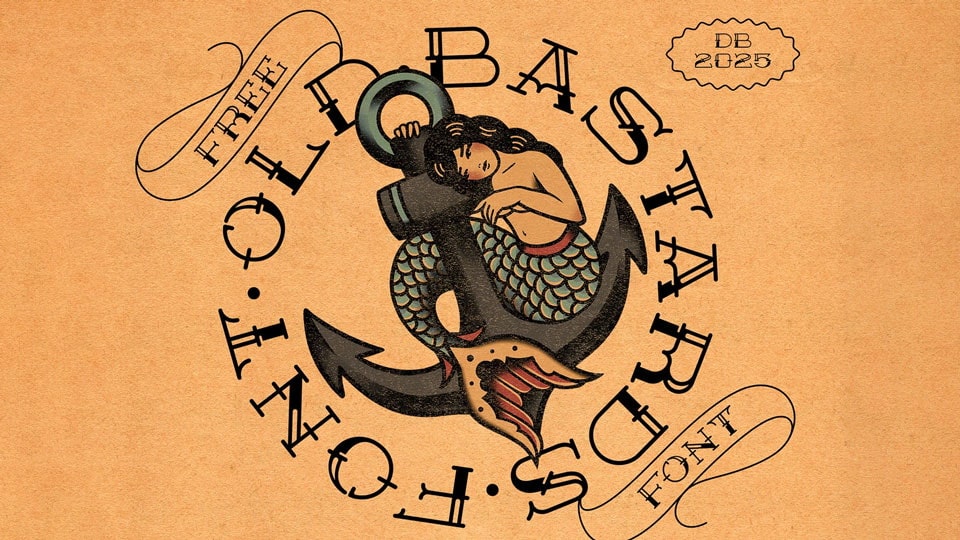
Download Oldbastards font, a free typeface inspired by traditional tattoos and the spirit of American old school. It’s perfect for stylish, eye-catching headlines, hooligan quotes, and advertising slogans.
Designer: Yaroslav Dolzhenko